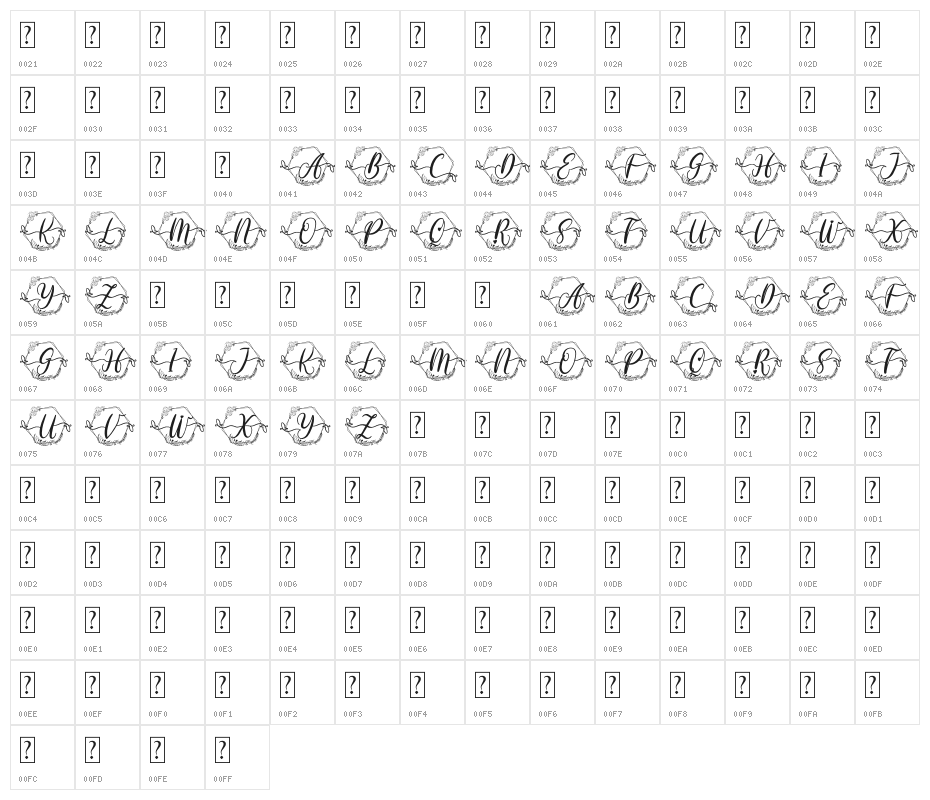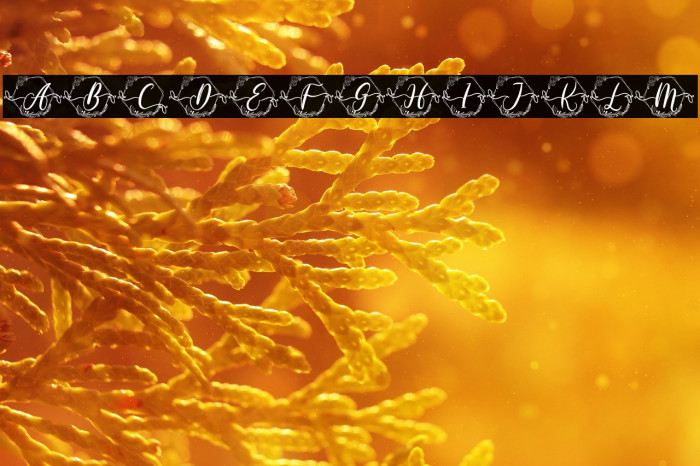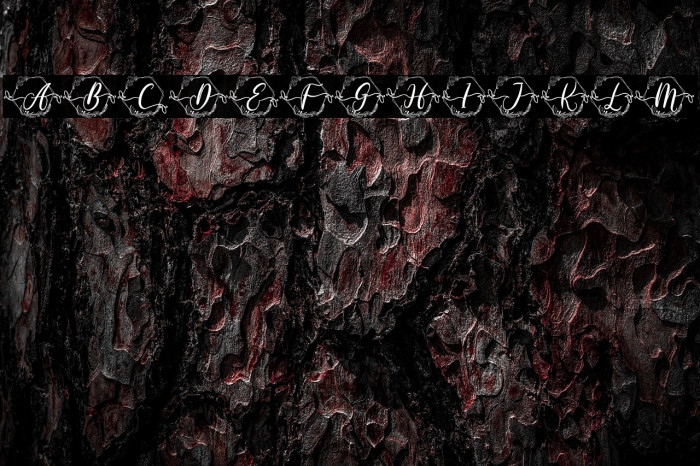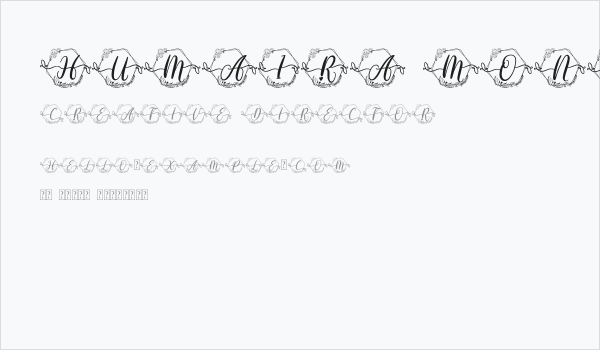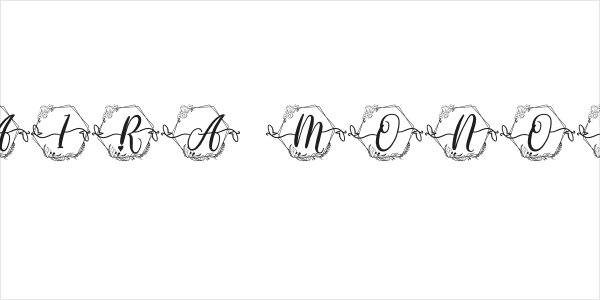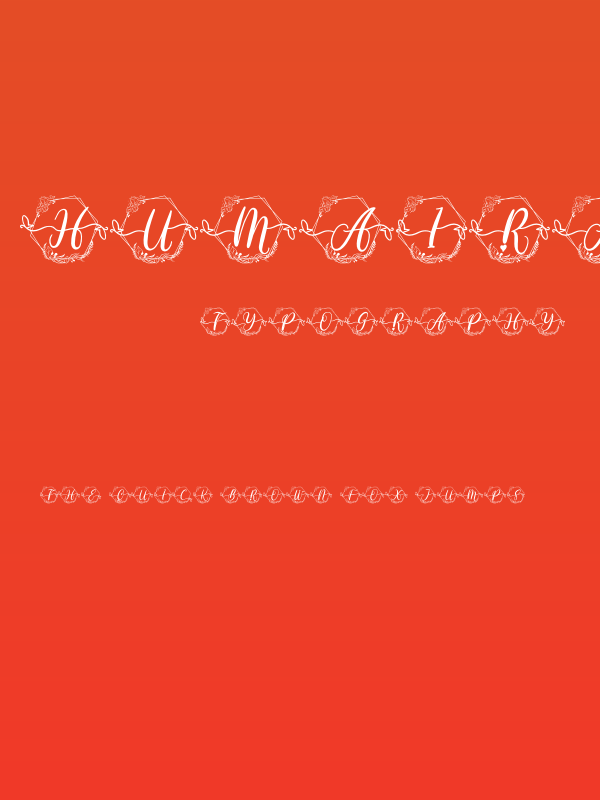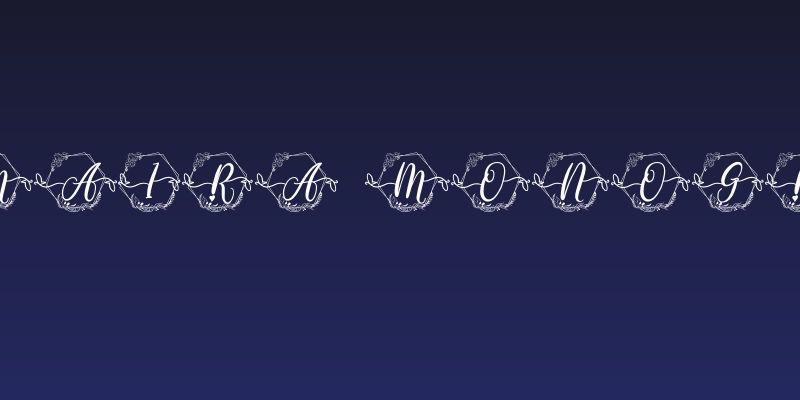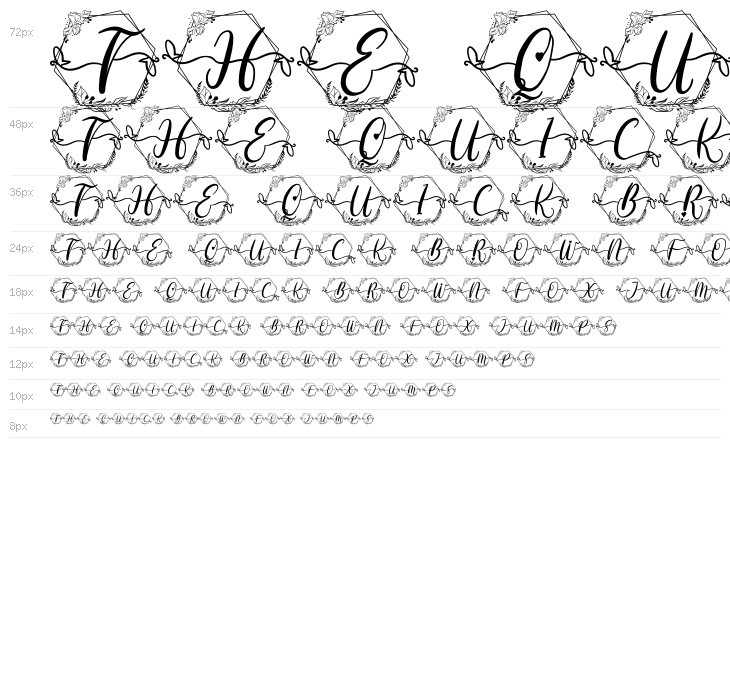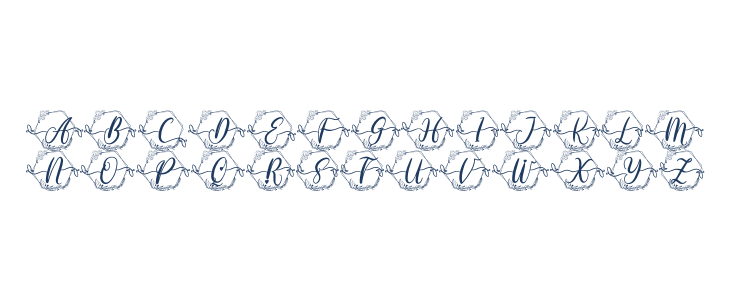
Humaira Monogram Font
Humaira Monogram Description
This font features an elegant and decorative style, characterized by its intricate monogram design. Each letter is encased within a circular frame adorned with delicate floral motifs, creating a sophisticated and ornate appearance. The script-like letters are fluid and graceful, with a consistent flow that enhances the overall aesthetic. The combination of the monogram style with floral embellishments makes it ideal for projects that require a touch of elegance and personalization. The font's unique design is perfect for creating bespoke invitations, stationery, and branding materials that demand attention and convey a sense of luxury.
Overall StyleDecorative
Use CaseLogos, Invitations, Stationery
Proposed ProjectsIdeal for wedding invitations, personalized stationery, luxury branding, and decorative monograms.